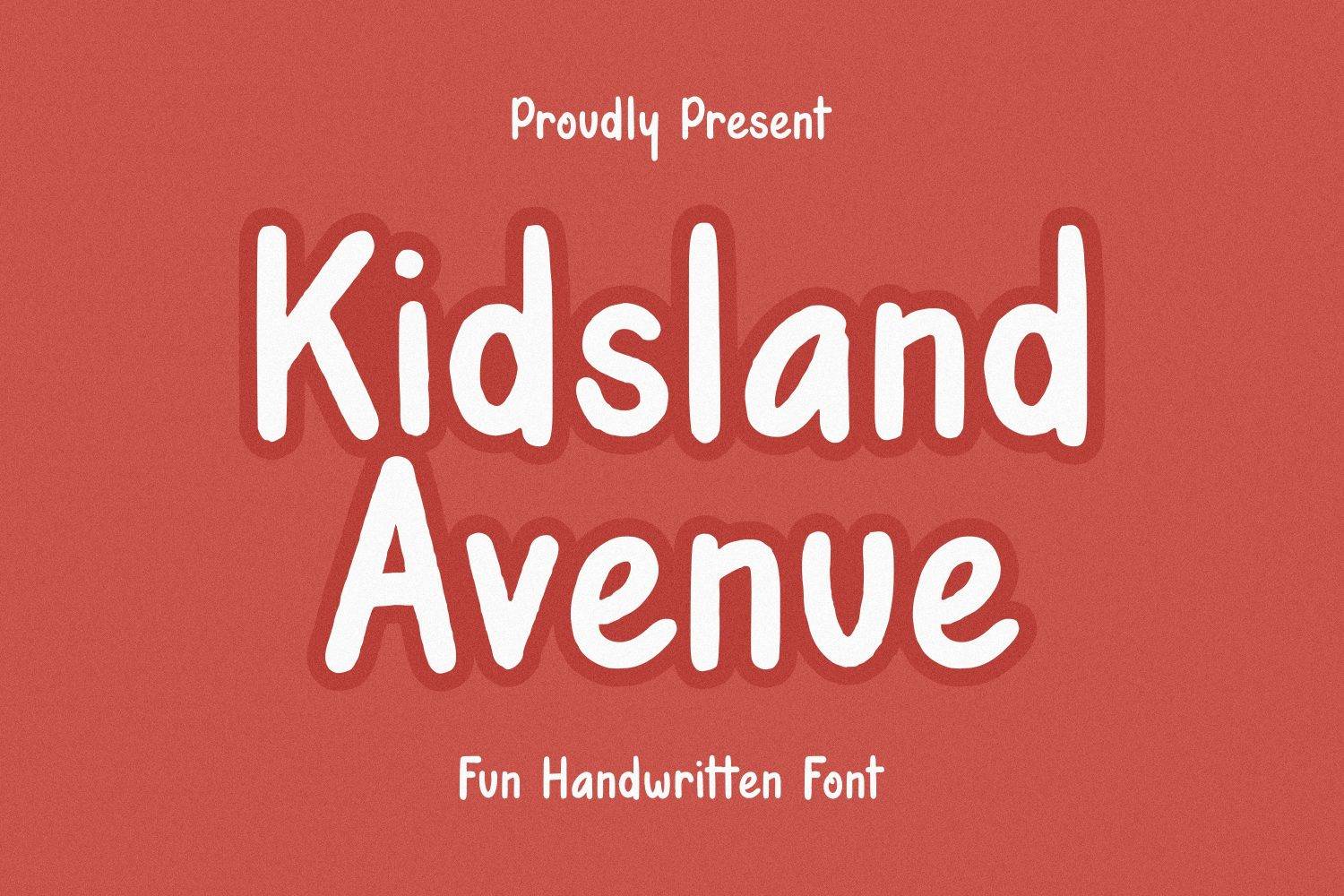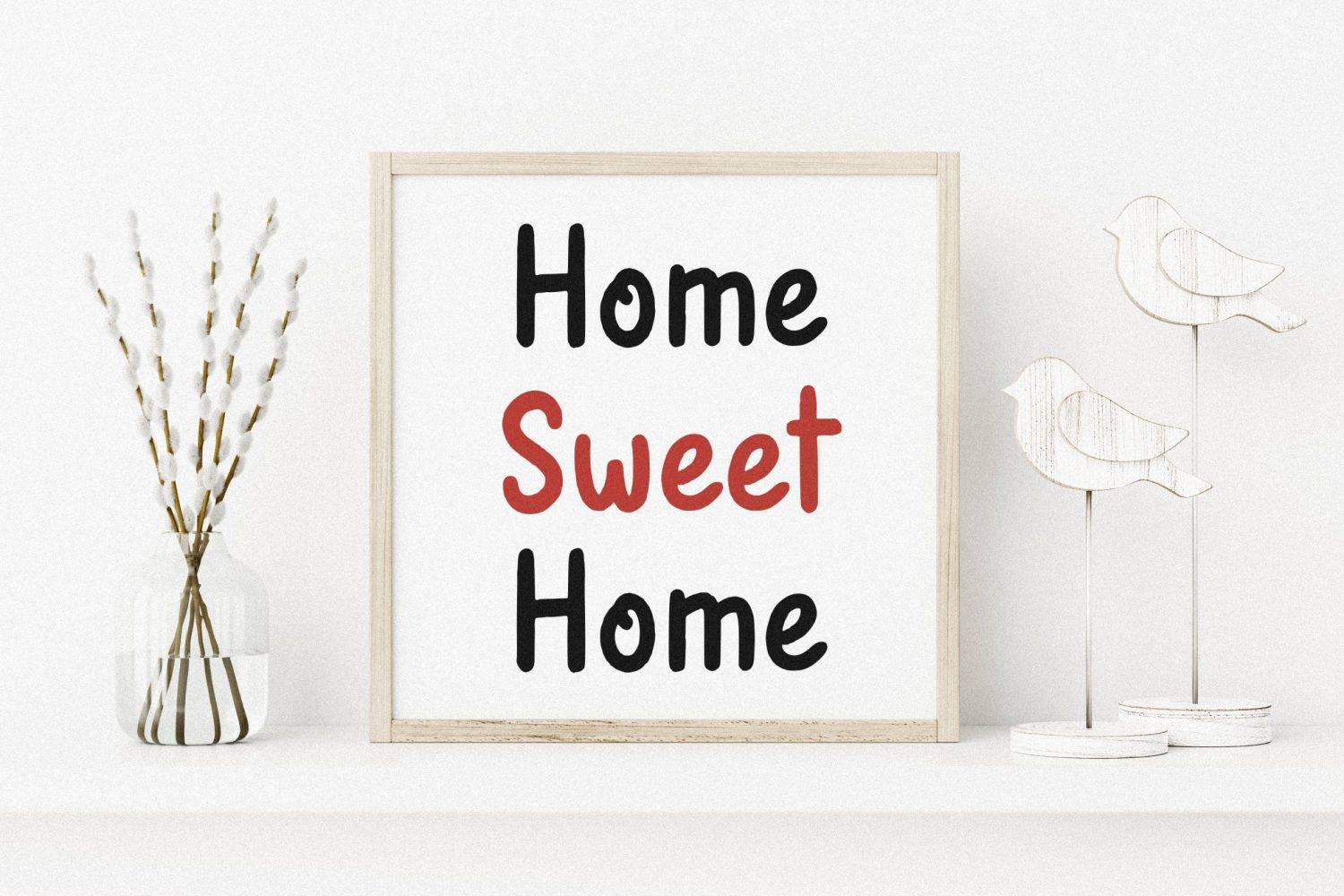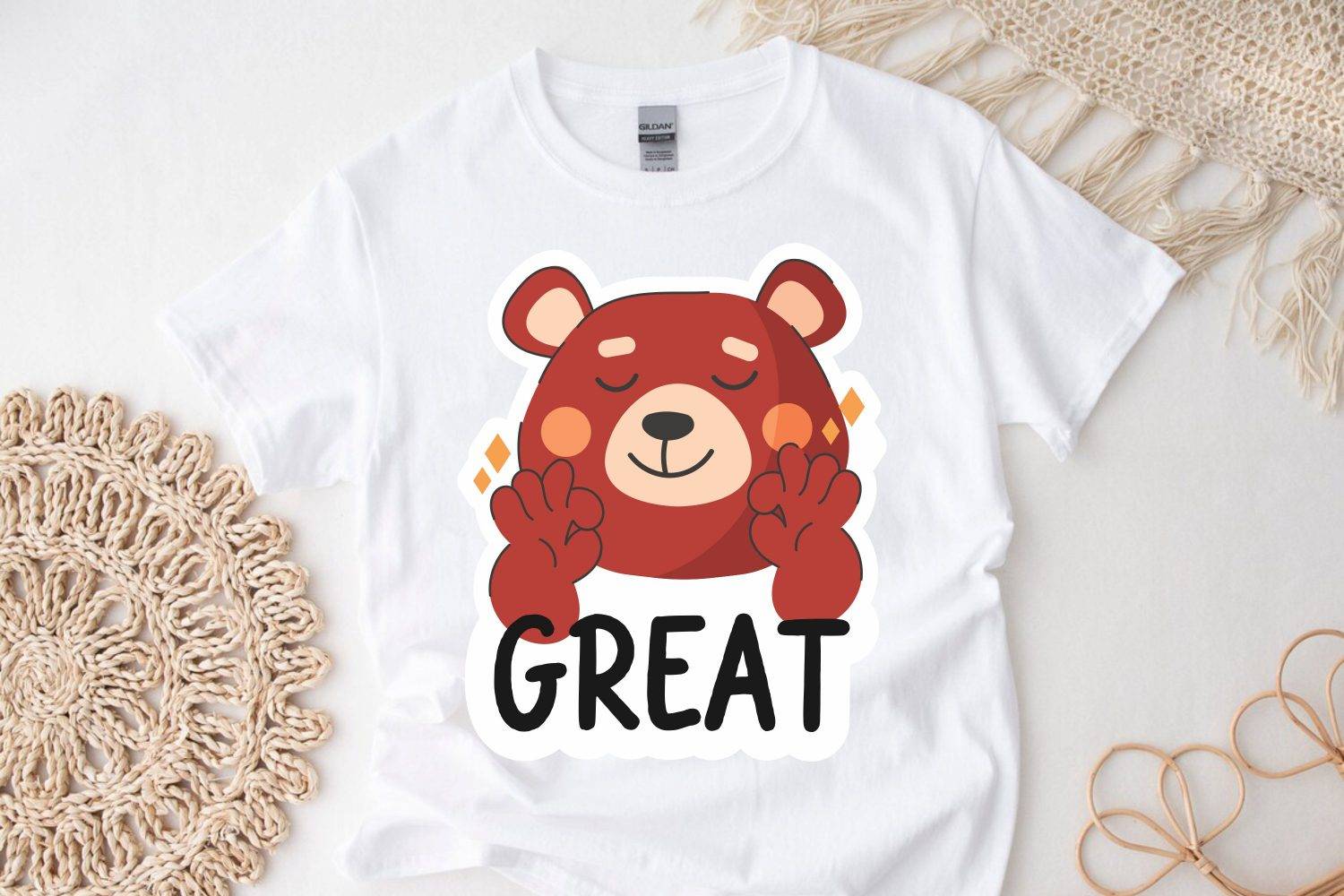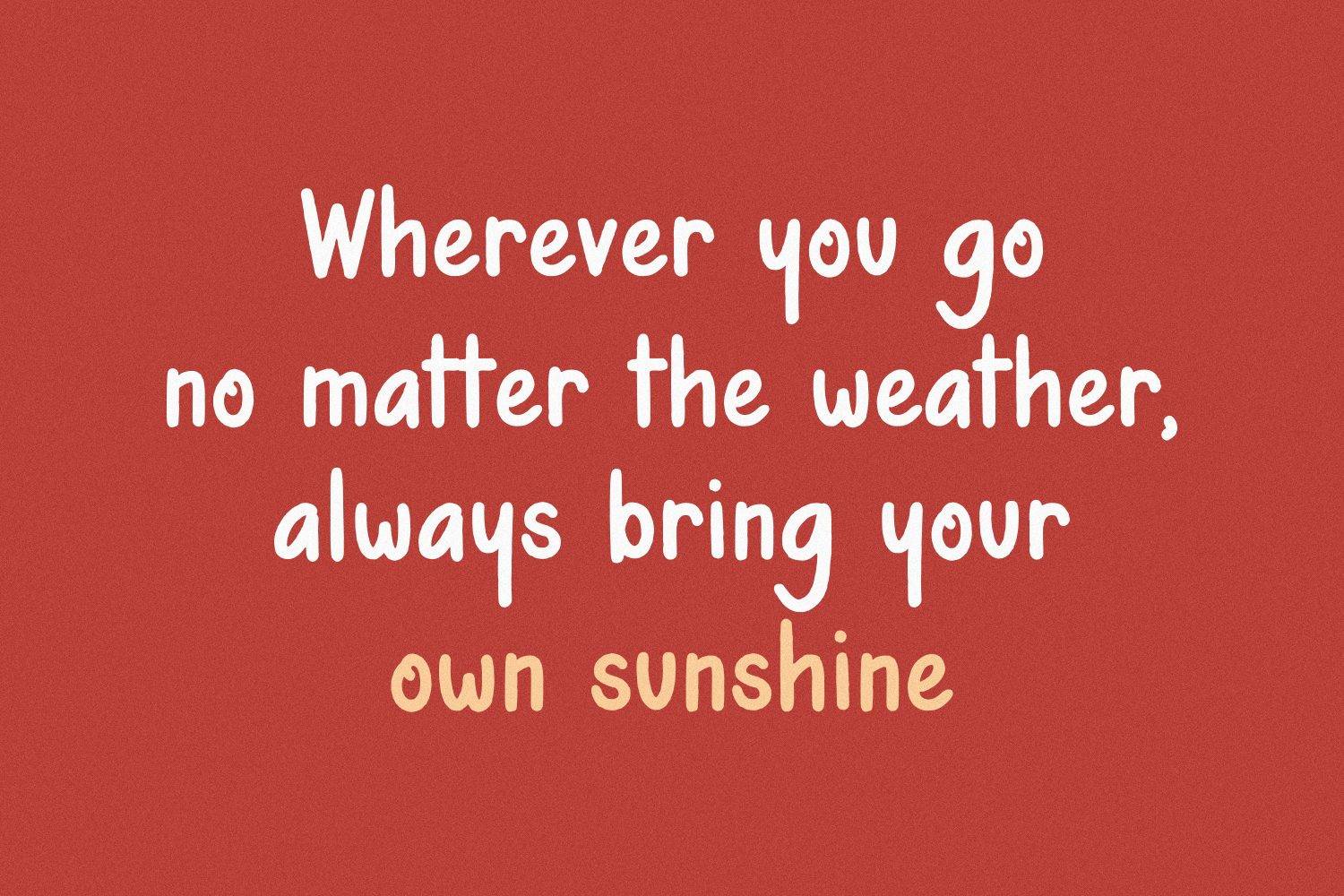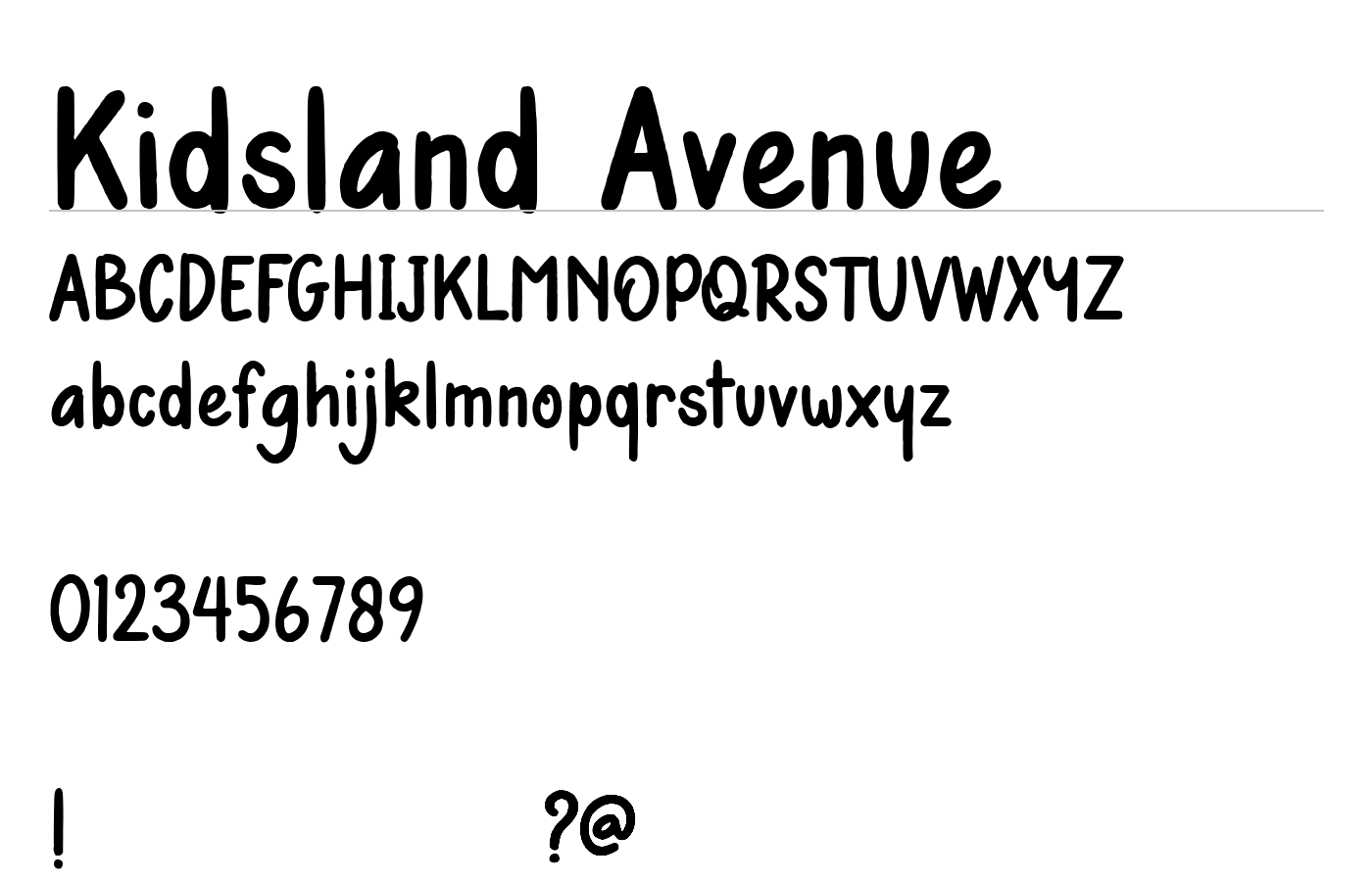
Kidsland Avenue is a playful, rounded sans serif font with a hand-drawn feel that conveys warmth and friendliness. Its casual, irregular strokes and high x-height make it approachable and easy to read, perfect for children’s materials, informal branding, and creative projects. This font works well in logos, posters, and educational content where a fun, youthful vibe is desired.
Kidsland Avenue Font
About Kidsland Avenue Font
| Designer | Annas Rifky Anhar |